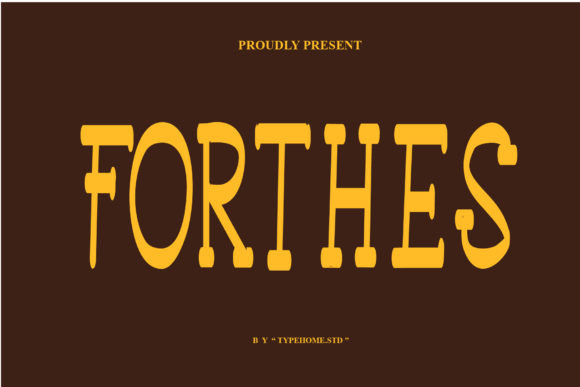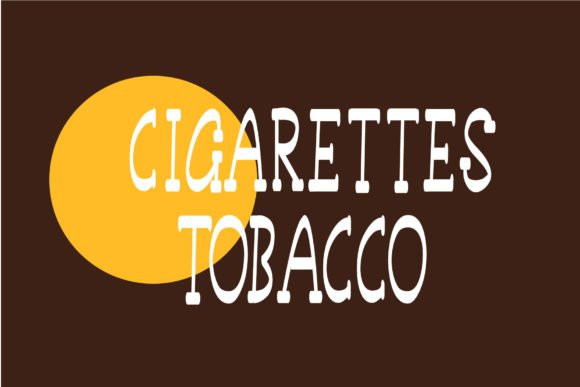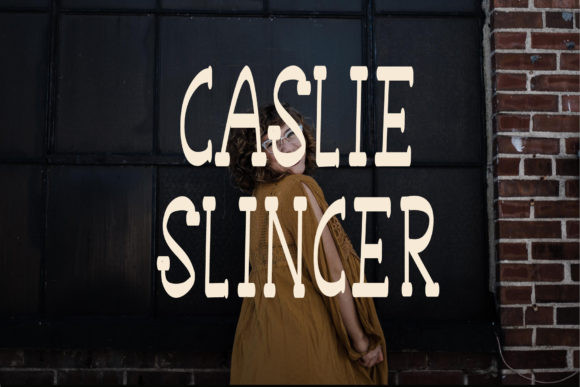
Forthes Font
Forthes is a cool and vintage styled display font. This original look will appeal to a wide range of crafty ideas, from letterheads and titles, to stationery.